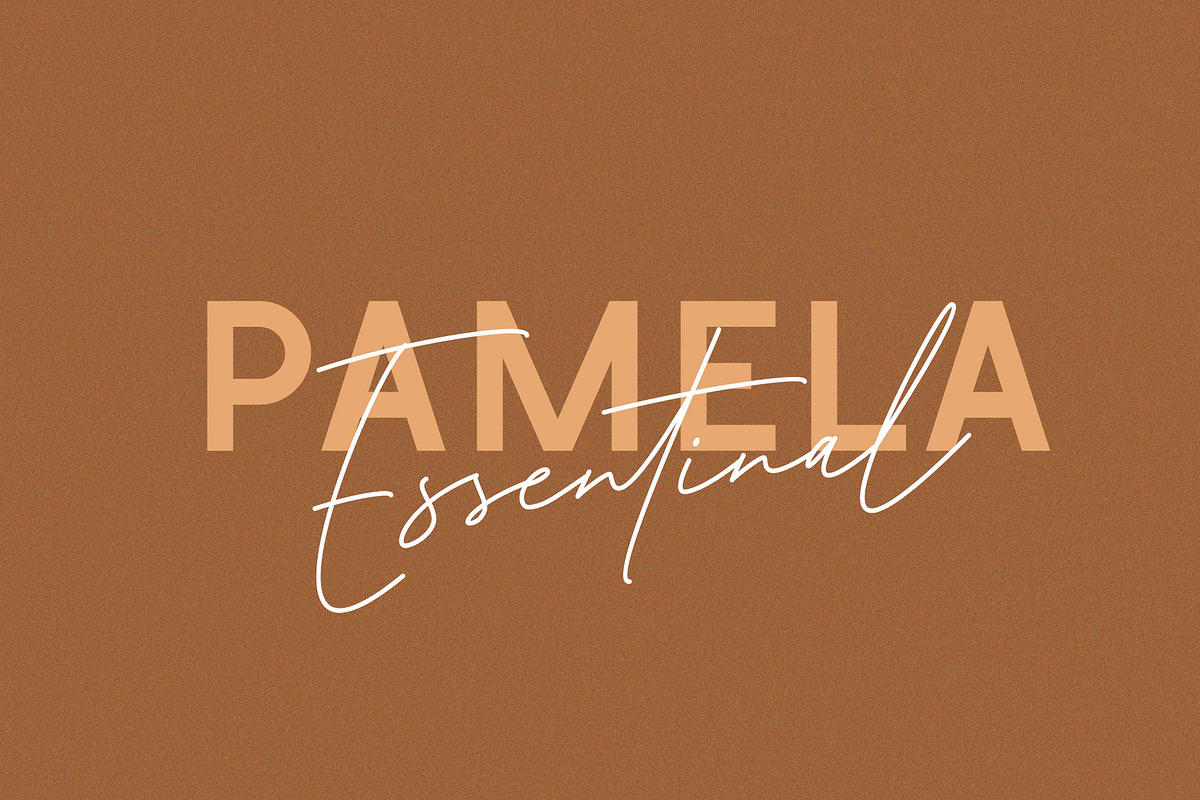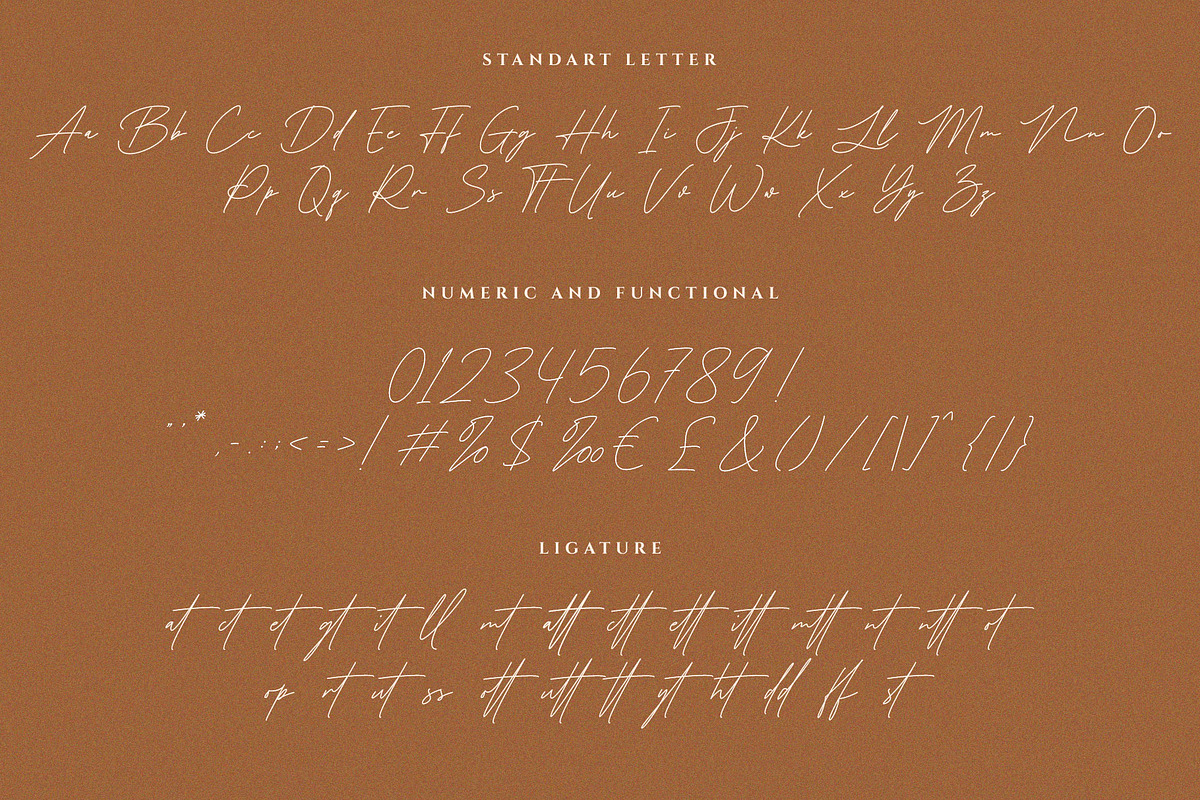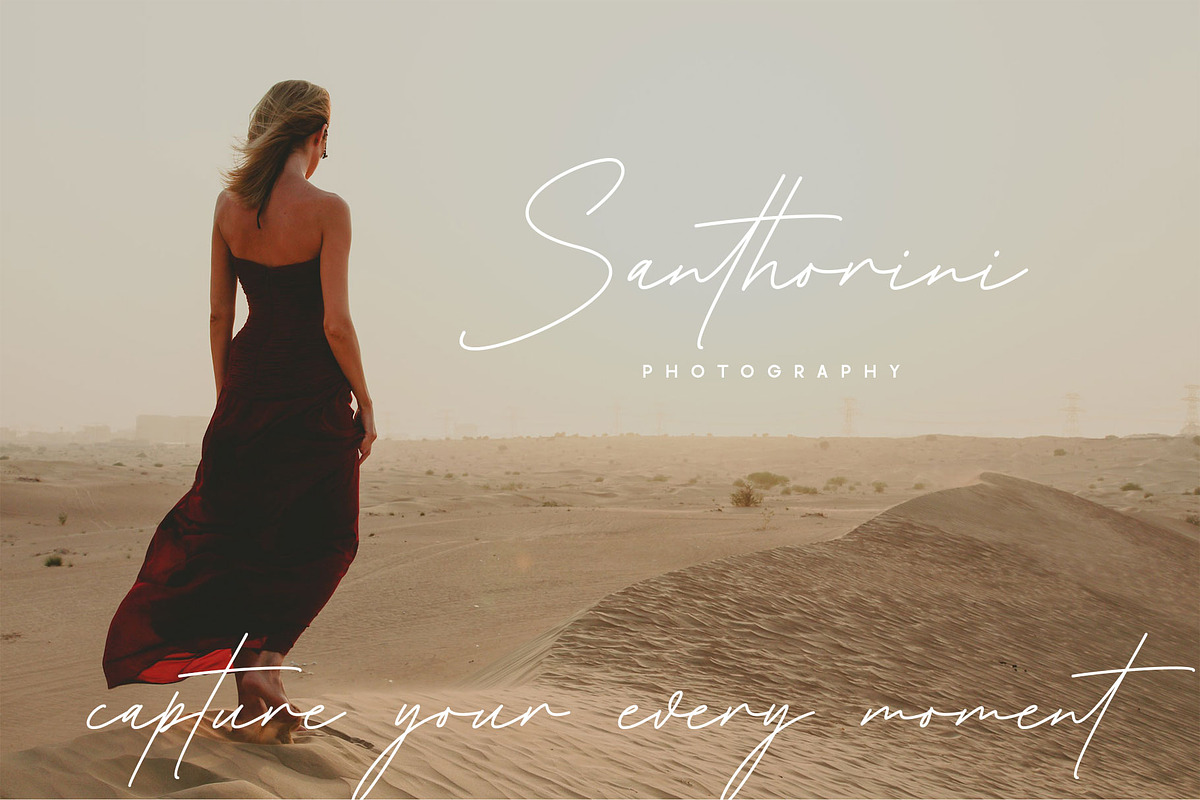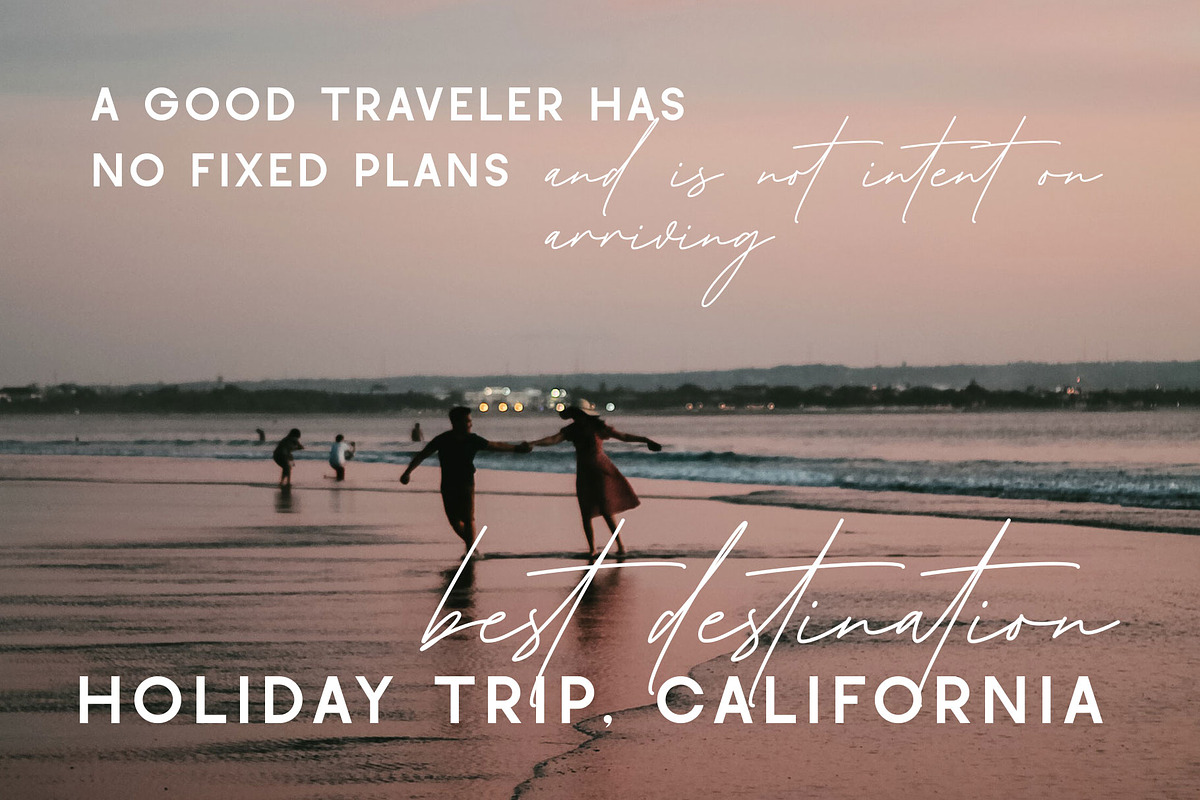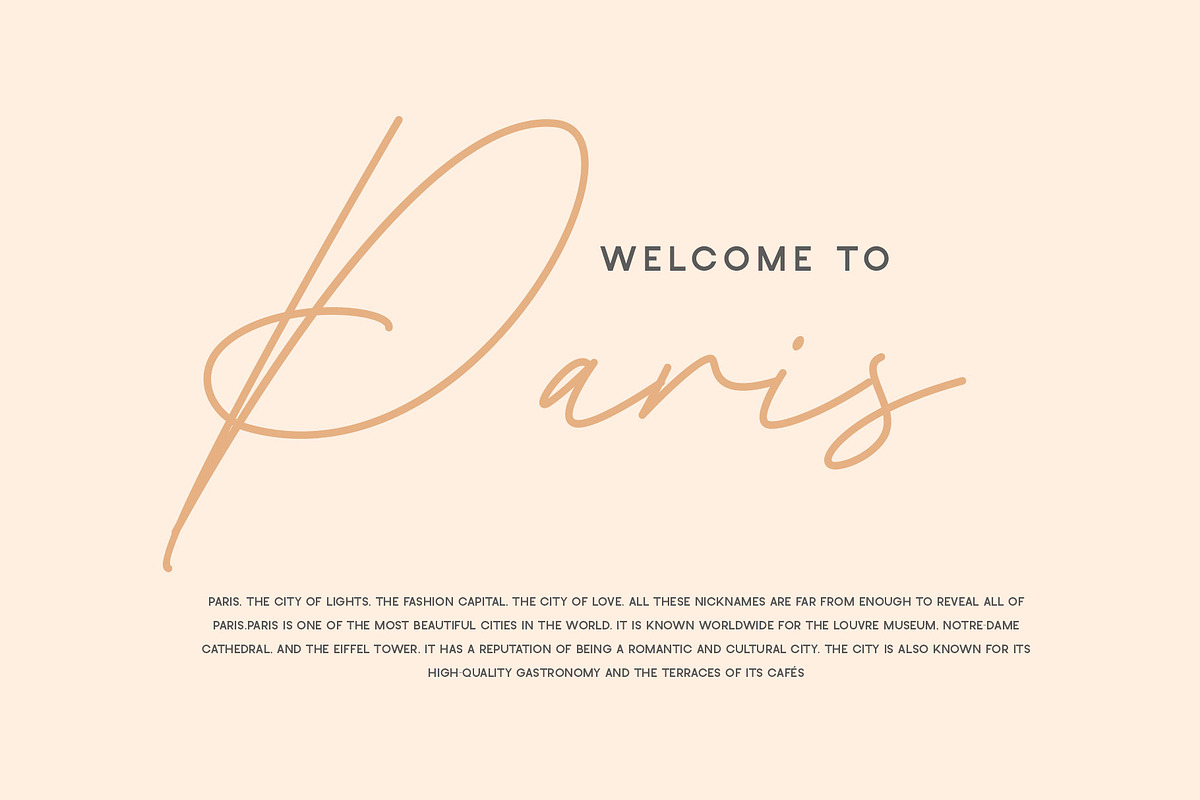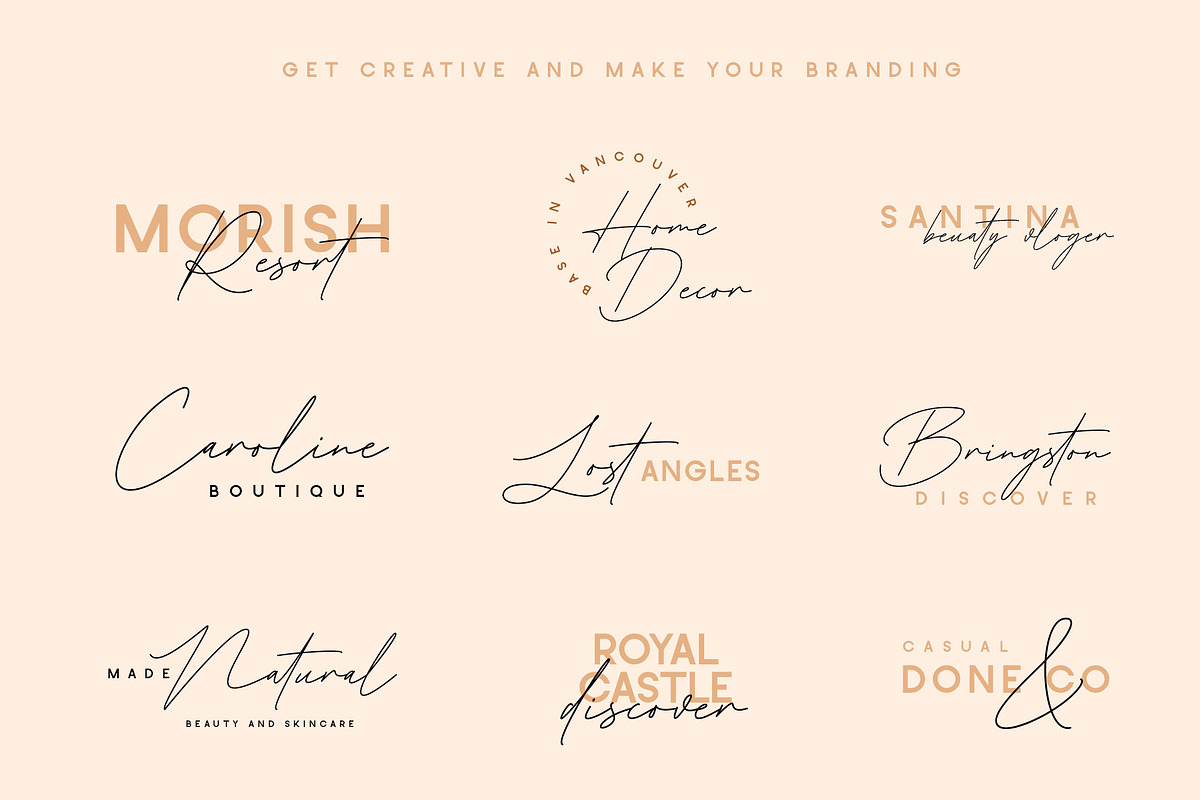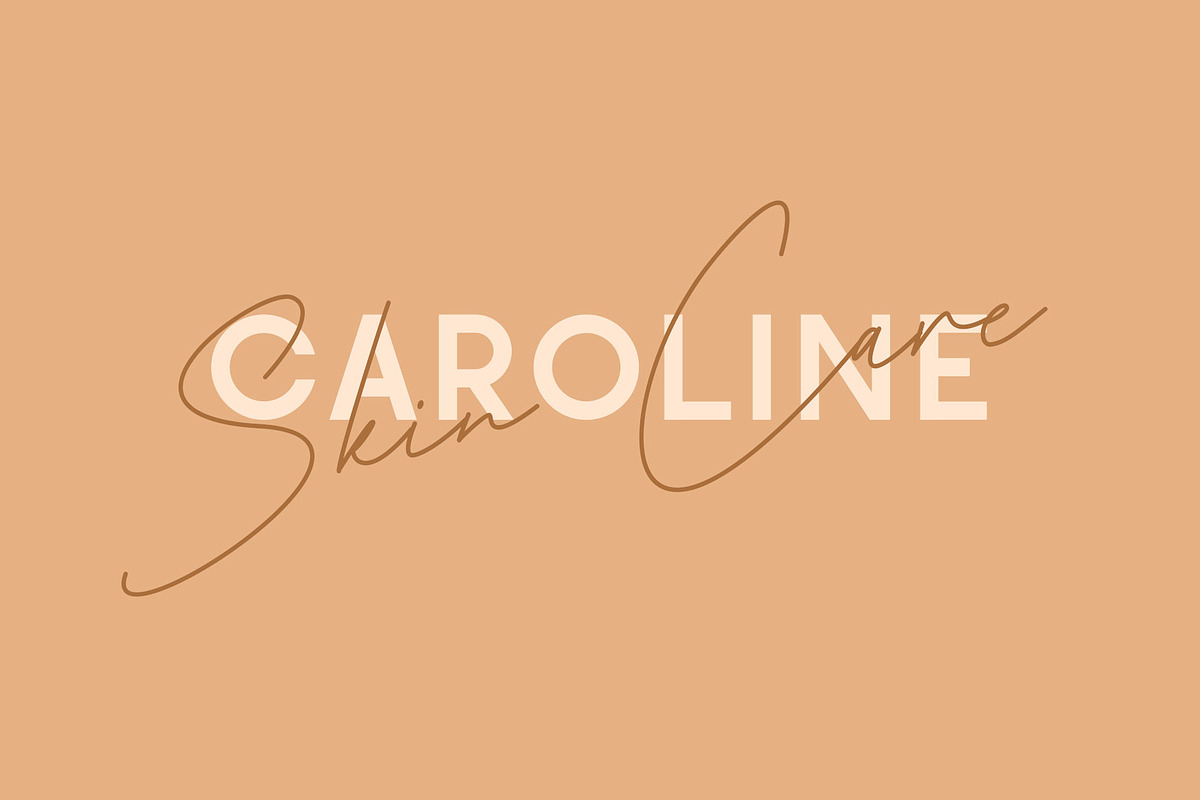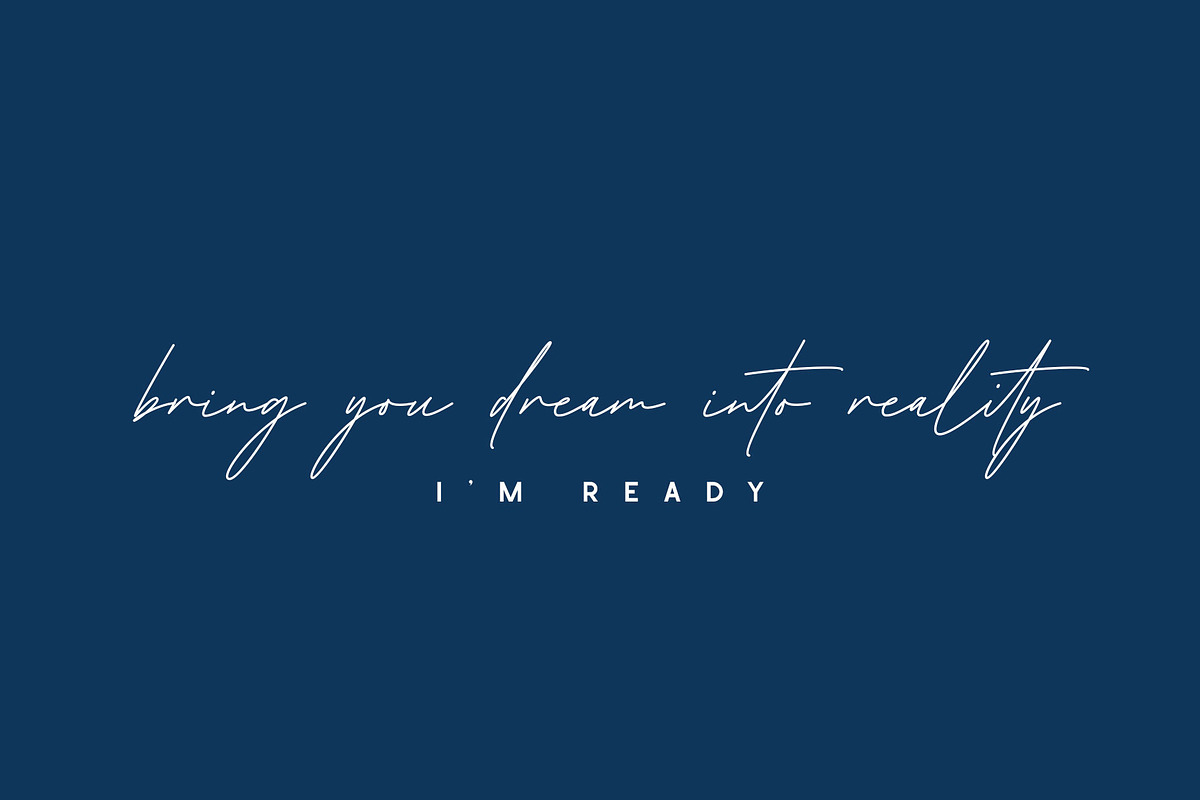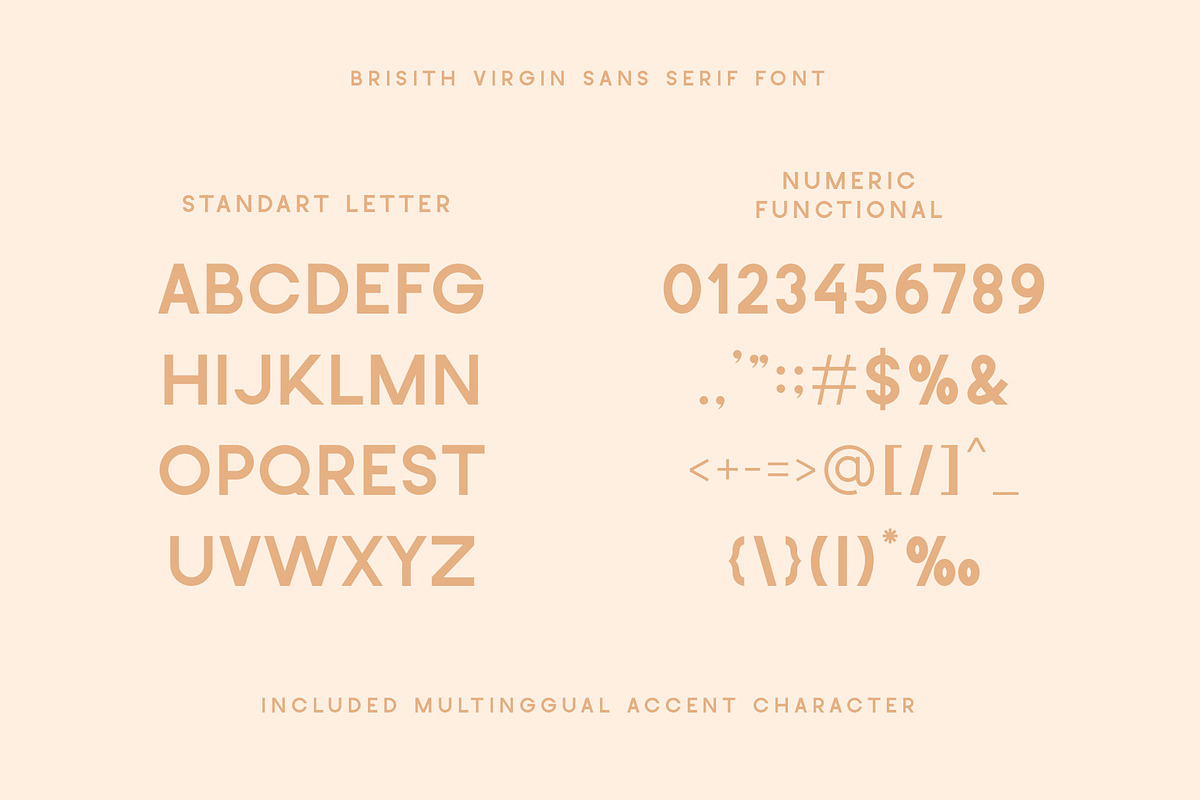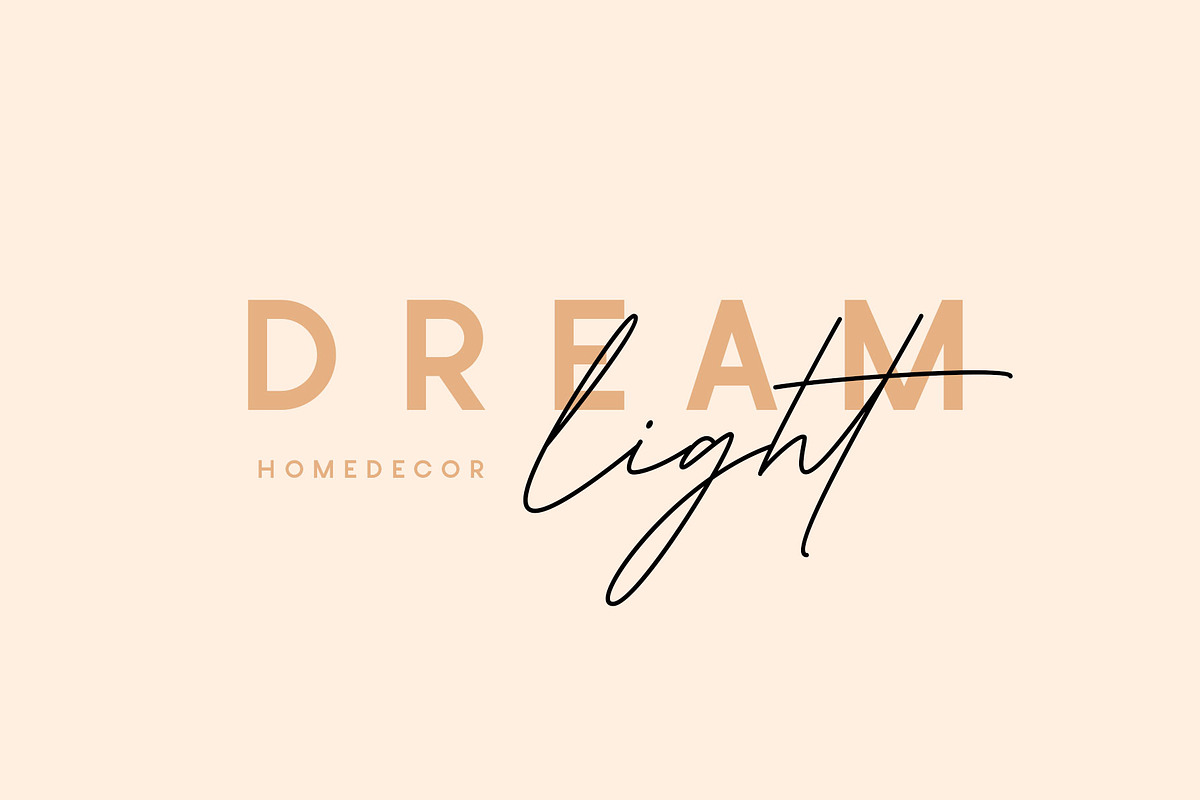
British Virgin A Font Duo
British Virgin - a simple, modern and minimalist sans-serif typeface paired with classy handwritten font. British virgin brings a touch of casual elegancy and sophistication to branding.
British virgin is a beautiful choice for any creative endeavor, creating elegant, chic, lifestyle design such as logos, title, cover, branding, display and magazine, and more. Let's we make a beuatiful work with us.
Sans Serif
- All Caps
- International Multilinggual Support (Á, Â, Ä, À, Å, Ã, Ǎ, Æ, Ç, Ć, Ĉ, Č, Ð, É, Ê, Ë, Ẽ, È, Ě, Ǧ, Í, Î, Ï, Ì, Ĩ, Ń, Ň, Ñ, Ó, Ô, Ö, Ò, Õ, Ø, Œ, Ś, Š, Ú, Û, Ü, Ù, Ý, Ÿ, Ź, Ž, á, â, ä, à, å, ã, ǎ, ç, ć, ĉ, č, é, ê, ë, ẽ, è, ě, ǧ, í, î, ï, ì, ĩ, ń, ň, ñ, ó, ô, ö, ò, õ, ś, š, ú, û, ü, ù, ý, ÿ, ź, ž,)
Script:
- Standar letter A-Z and a-z